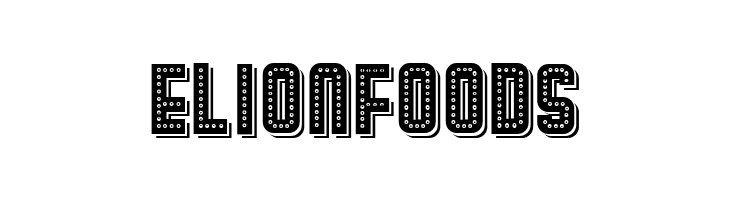
Broadway Flat Regular Font
Vladimir Nikolic - www.coroflot.com/vladimirnikolic
A bold, decorative typeface with geometric shapes and a theatrical style.
Broadway Regular Font
Vladimir Nikolic - www.coroflot.com/vladimirnikolic
A bold, decorative font with a unique dotted pattern for a lively and dynamic look.
Broadway Flat 3D Regular Font
Vladimir Nikolic - www.coroflot.com/vladimirnikolic
A bold, 3D geometric font with a modern, impactful style.
Broadway Flat Italic Font
Vladimir Nikolic - www.coroflot.com/vladimirnikolic
A bold, italicized font with a vintage yet modern style, perfect for impactful headlines.
Broadway Flat 3D Italic Font
Vladimir Nikolic - www.coroflot.com/vladimirnikolic
A bold, 3D italic font with a flat, modern design.
Broadway 3D Regular Font
Vladimir Nikolic - www.coroflot.com/vladimirnikolic
A bold, retro 3D font with dotted interiors and strong shadows.
Broadway Shadow Regular Font
Vladimir Nikolic - www.coroflot.com/vladimirnikolic
A bold, dotted font with a shadow effect, ideal for vintage or theatrical designs.
Broadway Italic Font
Vladimir Nikolic - www.coroflot.com/vladimirnikolic
A bold, decorative font with a dotted pattern, ideal for theatrical and eye-catching designs.
BroadwayEvent Font
A bold, decorative font inspired by classic Broadway marquees, featuring dotted outlines.
Broadway Musical Regular Font
A bold, geometric font with Art Deco influences, ideal for dramatic and vintage designs.
Broadway Flat 3D Filled Regular Font
Vladimir Nikolic - www.coroflot.com/vladimirnikolic
A bold, 3D decorative font with a flat, filled style.
Broadway Gradient 3D Regular Font
Vladimir Nikolic - www.coroflot.com/vladimirnikolic
A bold, 3D gradient font with a vintage marquee style.
Broadway Regular Font
A bold, geometric font with art deco influences, perfect for striking headlines.
Broadway 3D Italic Font
Vladimir Nikolic - www.coroflot.com/vladimirnikolic
A bold, 3D italic font with a dotted outline and shadow effect.
Broadway lights Font
A sharp, elongated font with high contrast and Art Deco influences.
Broadway 3D Filled Regular Font
Vladimir Nikolic - www.coroflot.com/vladimirnikolic
A bold, 3D decorative font with dotted accents and shadow effects.
Broadway Shadow Italic Font
Vladimir Nikolic - www.coroflot.com/vladimirnikolic
A bold, decorative font with a dotted shadow effect and italic slant.
Broadway Gradient 3D Italic Font
Vladimir Nikolic - www.coroflot.com/vladimirnikolic
A bold, 3D gradient font with an italic slant, perfect for dynamic headlines.
Broadway Flat 3D Filled Italic Font
Vladimir Nikolic - www.coroflot.com/vladimirnikolic